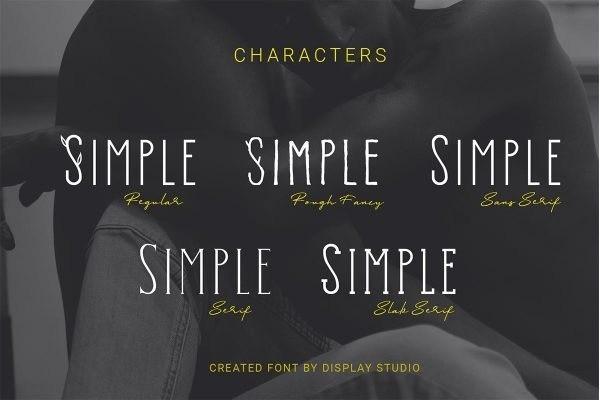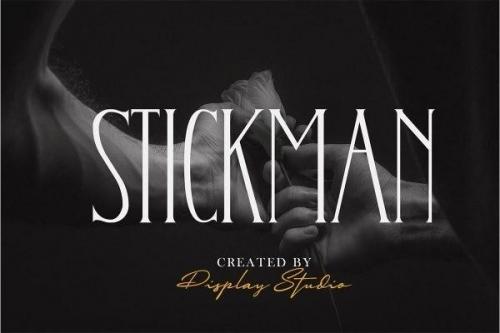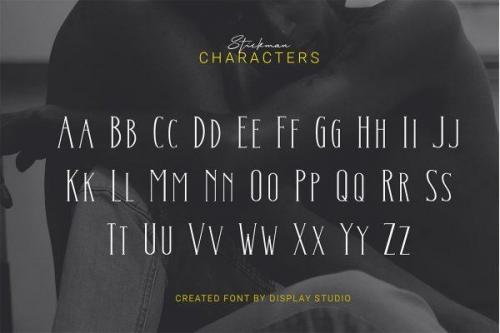
Stickman Font is a very cool font for headline designs with a bold and bold theme. With a strong display and clean nodes make text in the design become more character and great. Inspired by headline trends in a poster or magazine today. So that with a firm and a very modern style makes your design better!
Suitable for all graphic design projects, prints, logos, posters, t-shirts, packaging, website, ticket and applies to several types of graphic design.
- Designer: Display Type Font